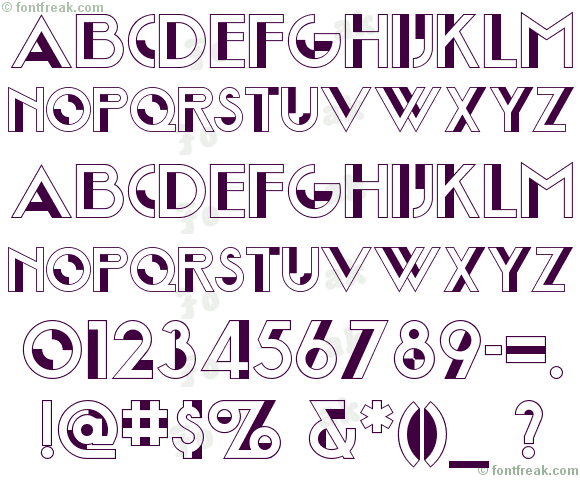
Joost A Millionaire NF
About Joost A Millionaire NF
Joost A Millionaire NF by Nick Curtis is a striking display font that captivates with its unique blend of modern and retro influences. This font features a bold, geometric style characterized by its thick strokes and sharp edges. The letterforms exhibit a playful yet sophisticated contrast, providing a sense of elegance while maintaining a contemporary edge. The spacing is well-balanced, ensuring legibility even at larger sizes, making it ideal for attention-grabbing designs.
This font is perfect for a variety of creative applications. It shines in wedding invitations, where its stylish flair can enhance the romantic theme. Its bold nature makes it suitable for movie posters, where it can effectively convey a sense of drama and excitement. Additionally, Joost A Millionaire NF works well on restaurant menus, adding an element of charm and sophistication that can elevate the dining experience. Content creators will also find it appealing for social media graphics, where striking visuals are crucial for engagement.
What sets Joost A Millionaire NF apart is its ability to blend playfulness with professionalism, making it suitable for both casual and formal contexts. The font captures attention and leaves a lasting impression, ensuring that any project utilizing it stands out in a crowded visual landscape. Whether you are designing for print or digital media, this font is sure to bring your creative vision to life.